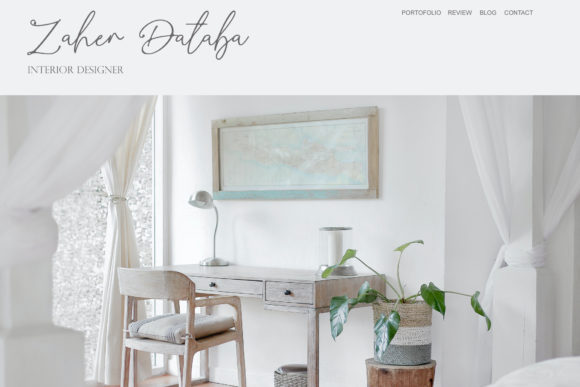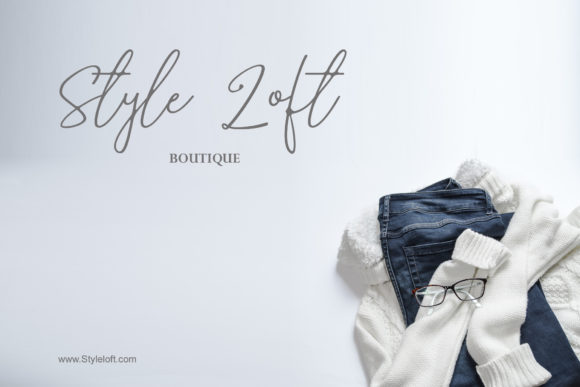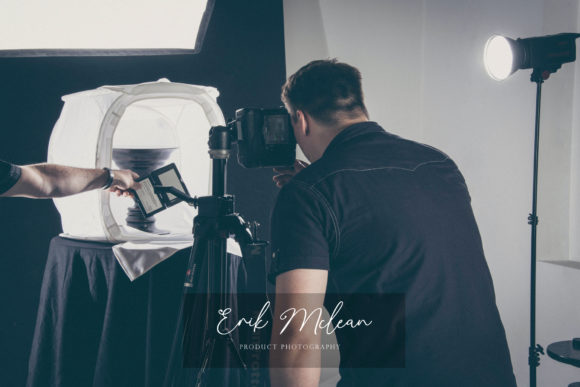
About Spring Beauty Font
Spring Beautyt is a handwritten script font with a simple and classy style. This font is great for your next creative projects such as watermark on photography, quotes, album cover, logos, business cards, and many other design projects.Spring Beauty will elevate your work to the highest level.